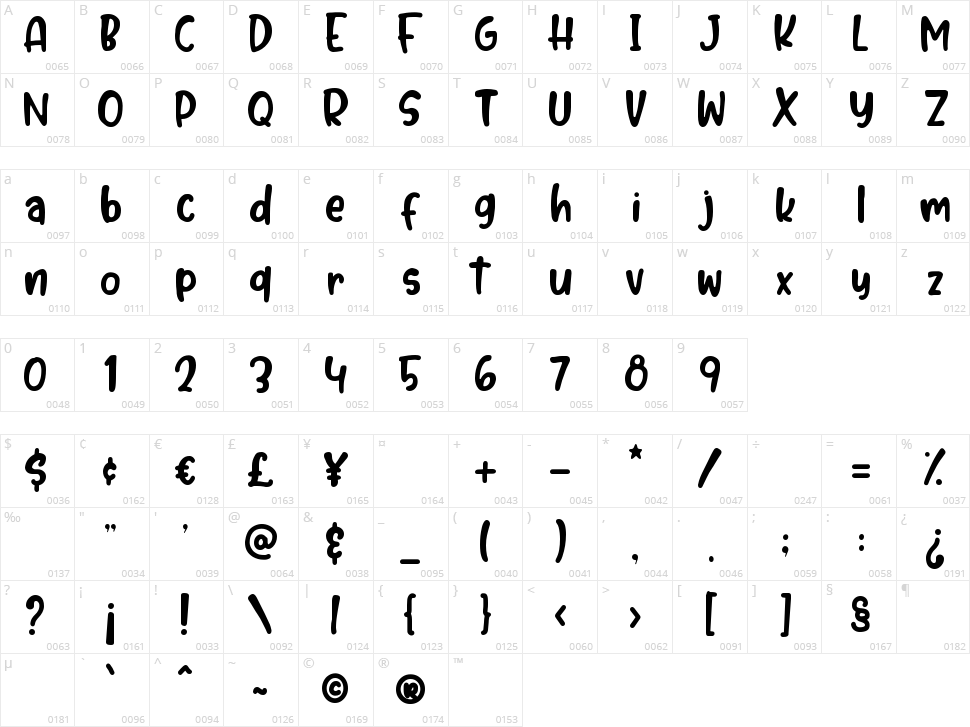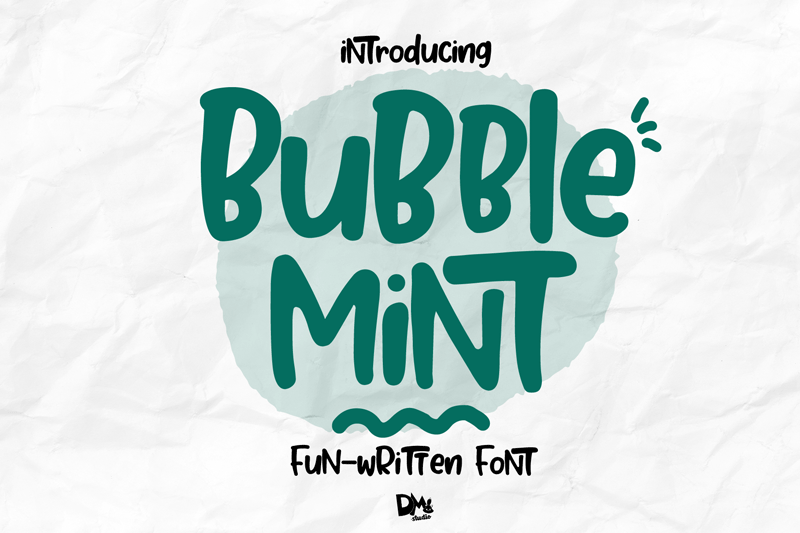
Bubble Mint
Note of the author This enchanting font will turn any creative idea into a true standout.
Perfect fit for all of your logos, branding, social media, etc.
Get creative with its unique playfulness, and use it to brighten up any crafting project!